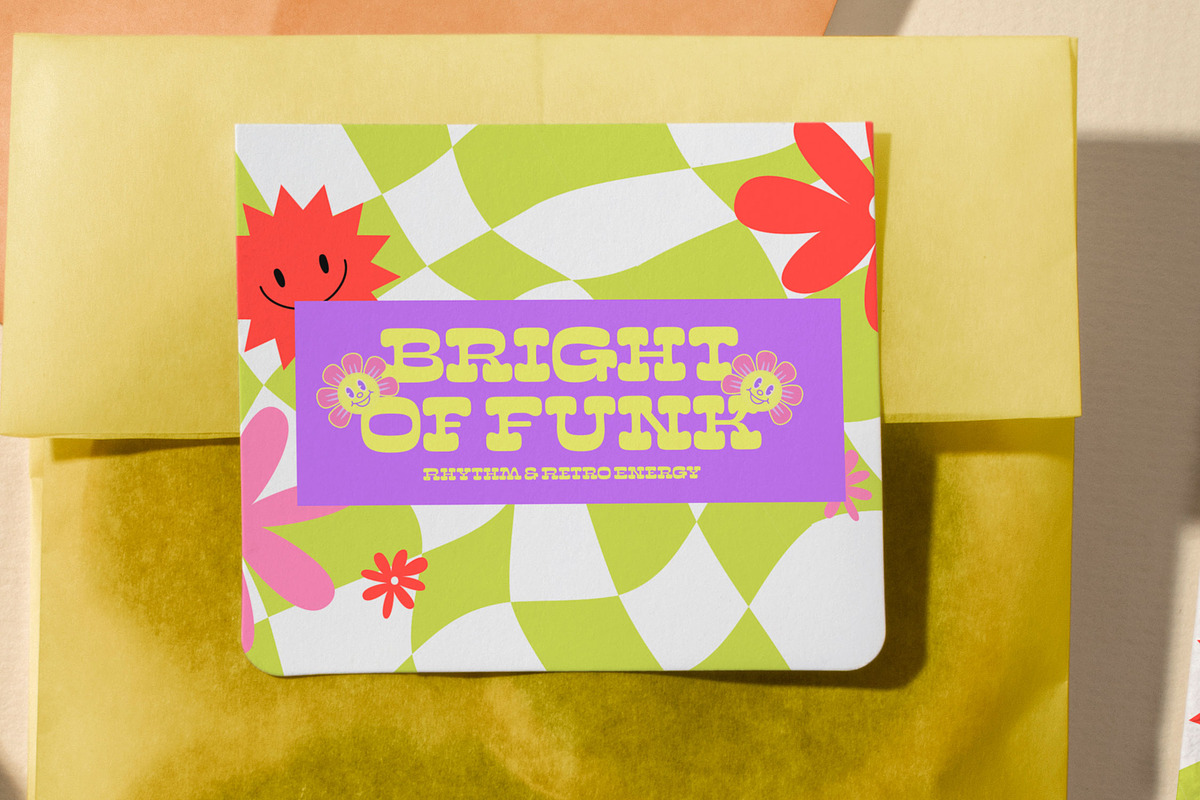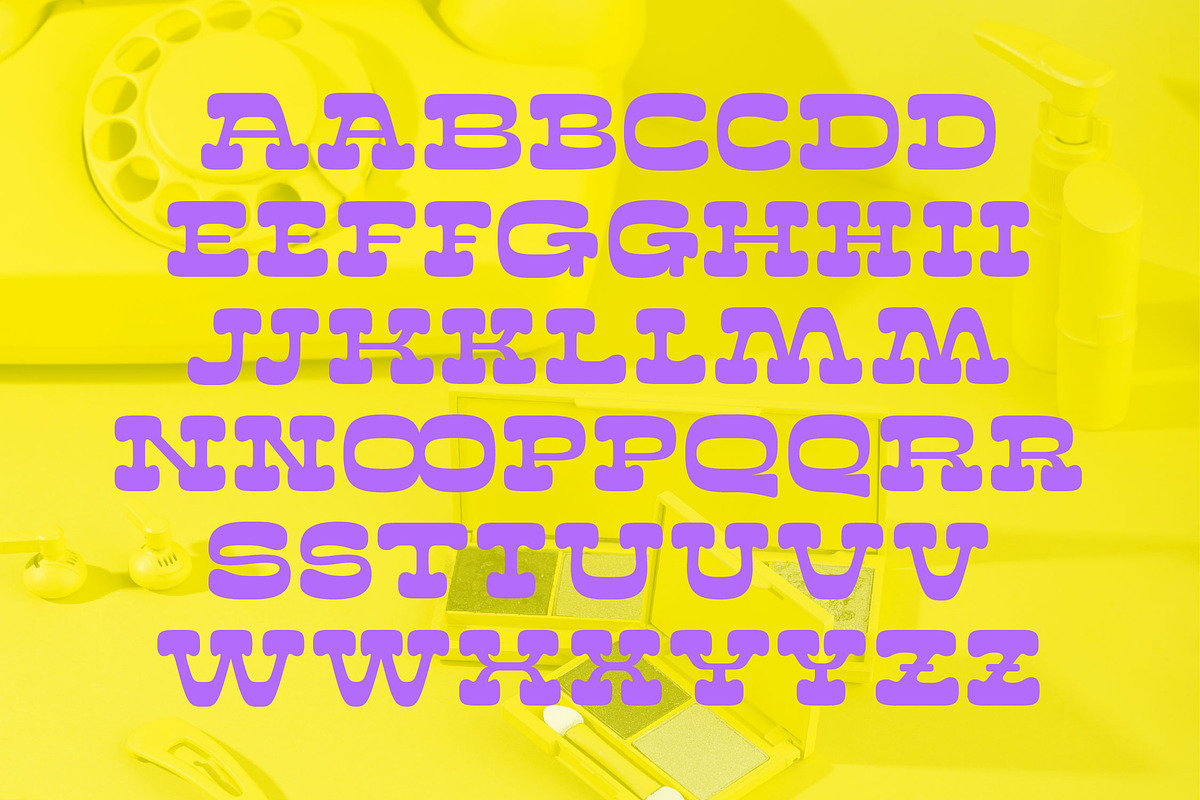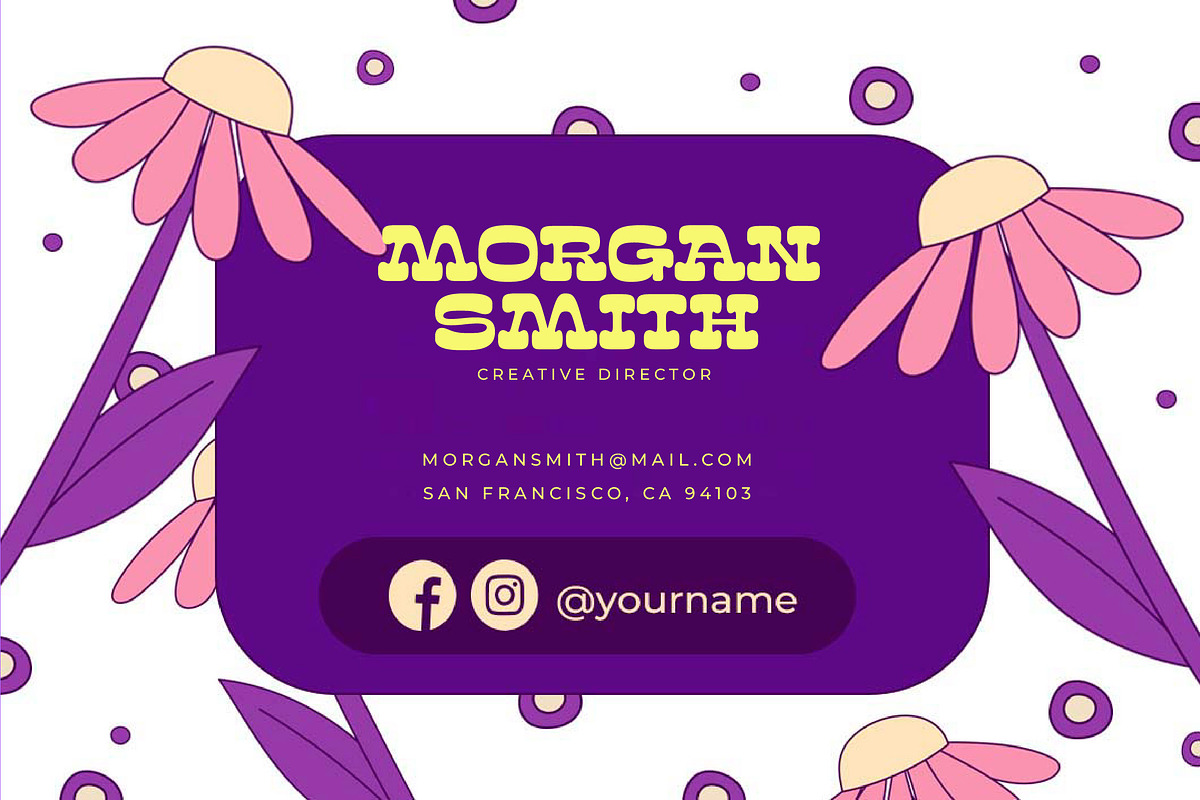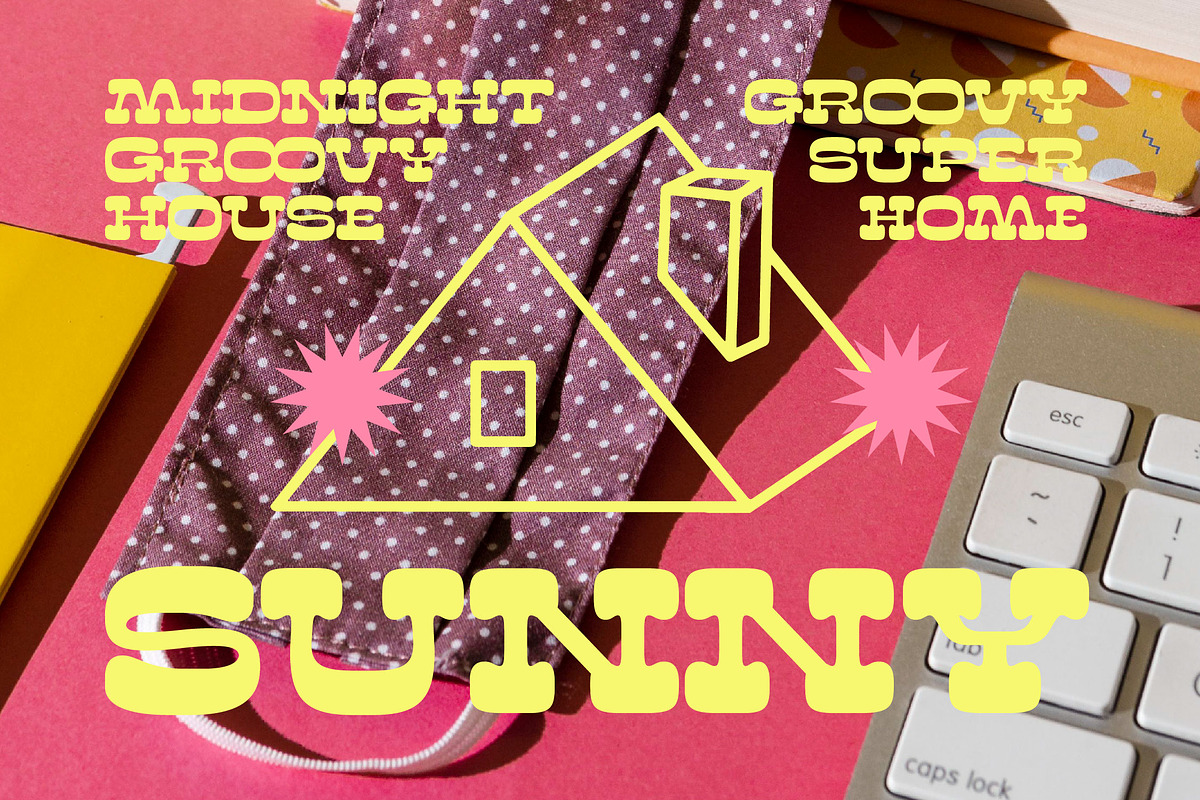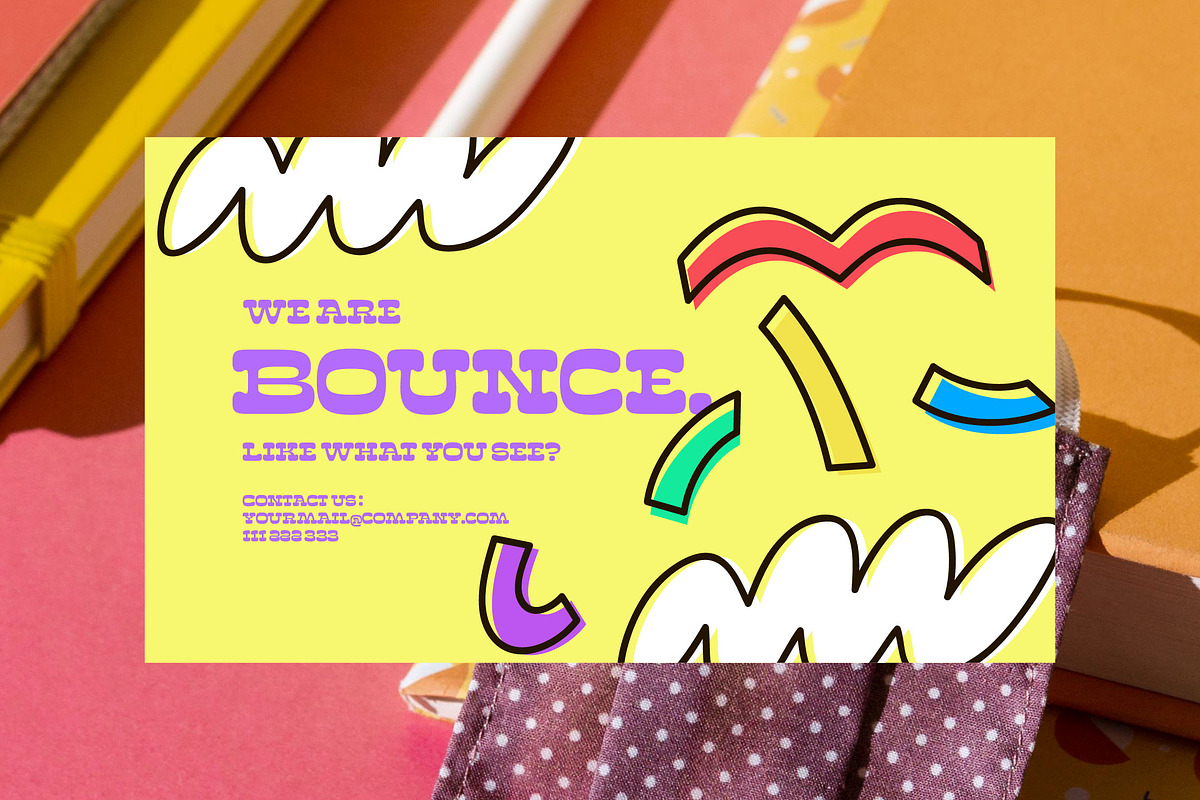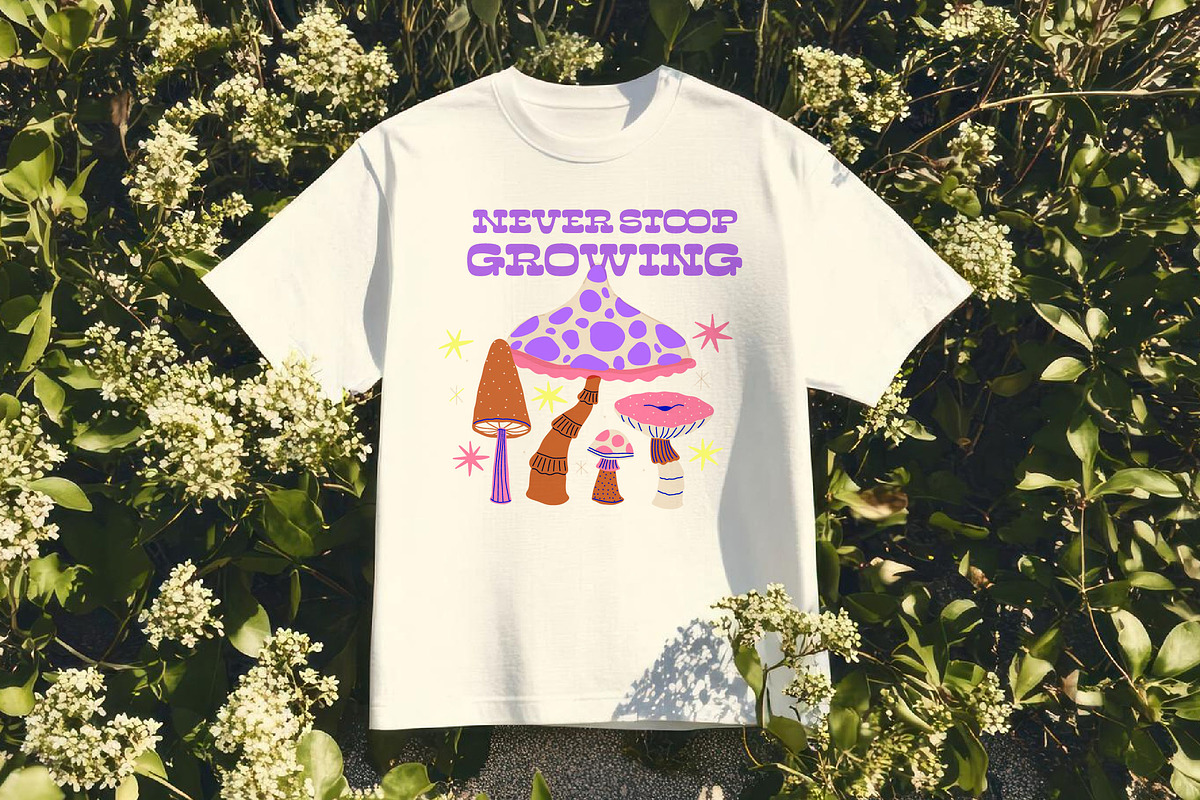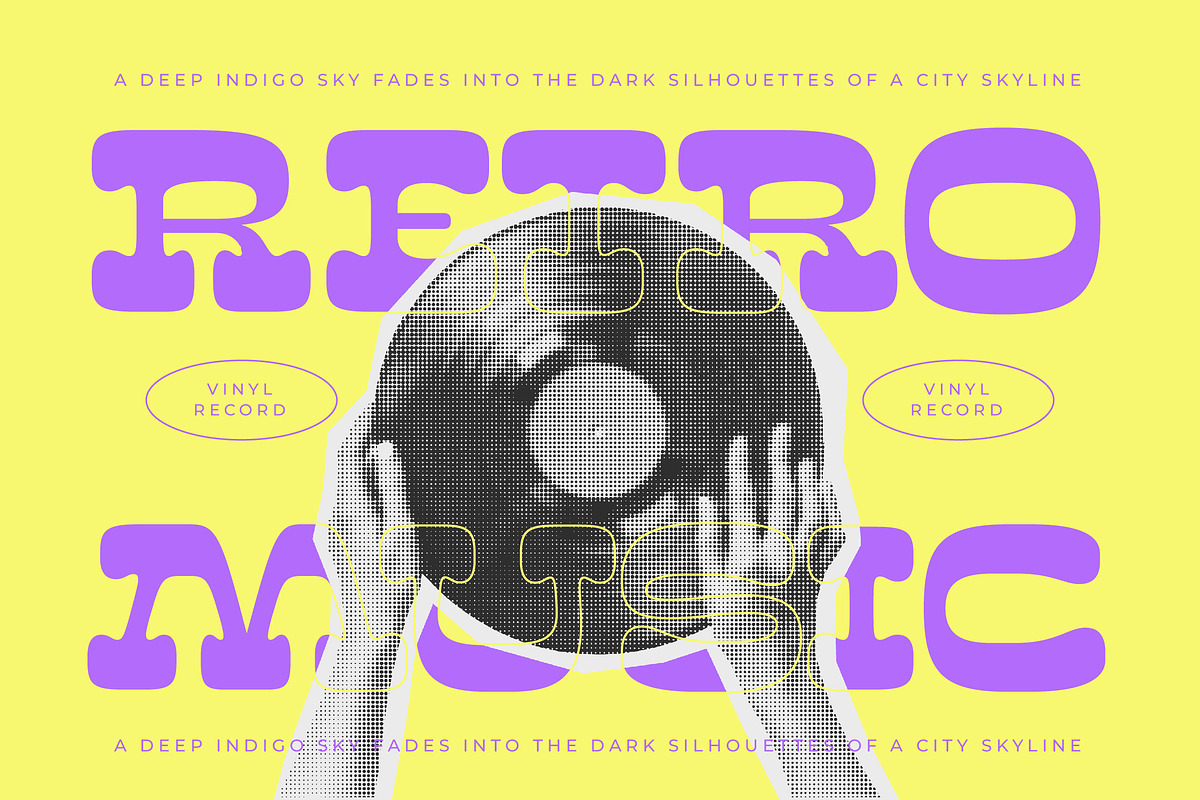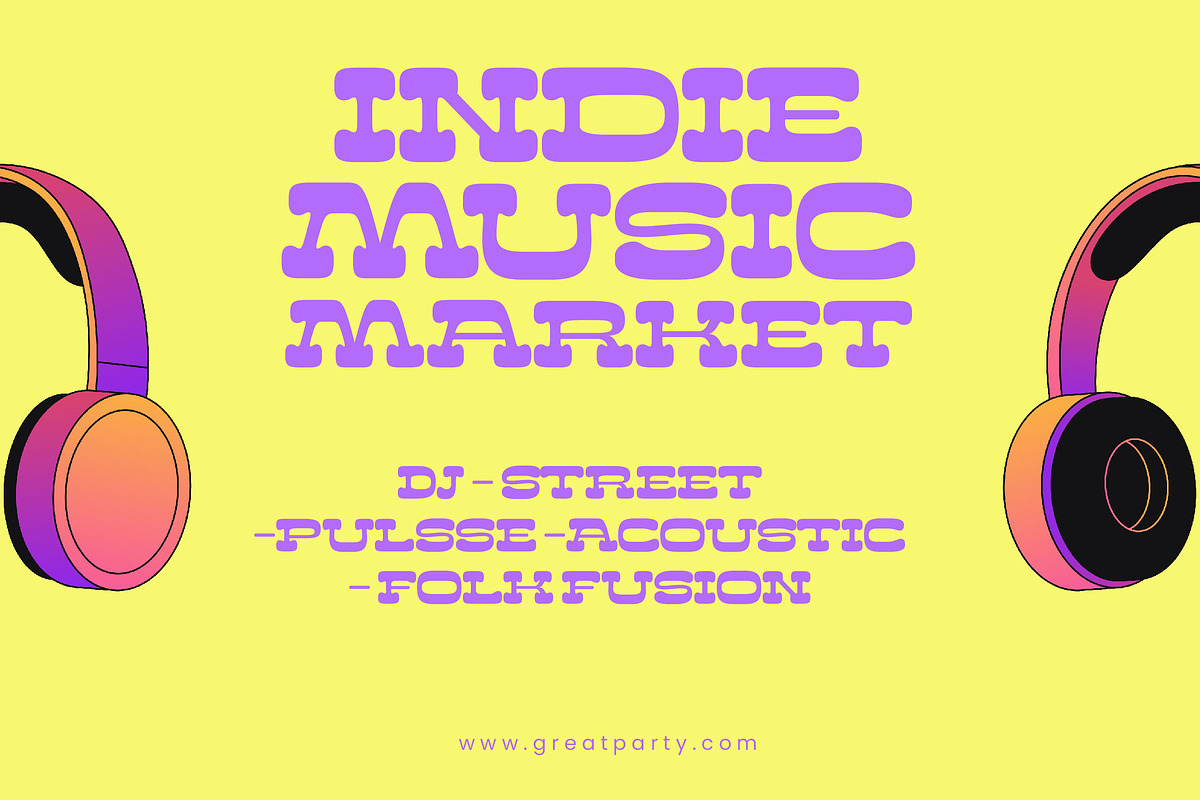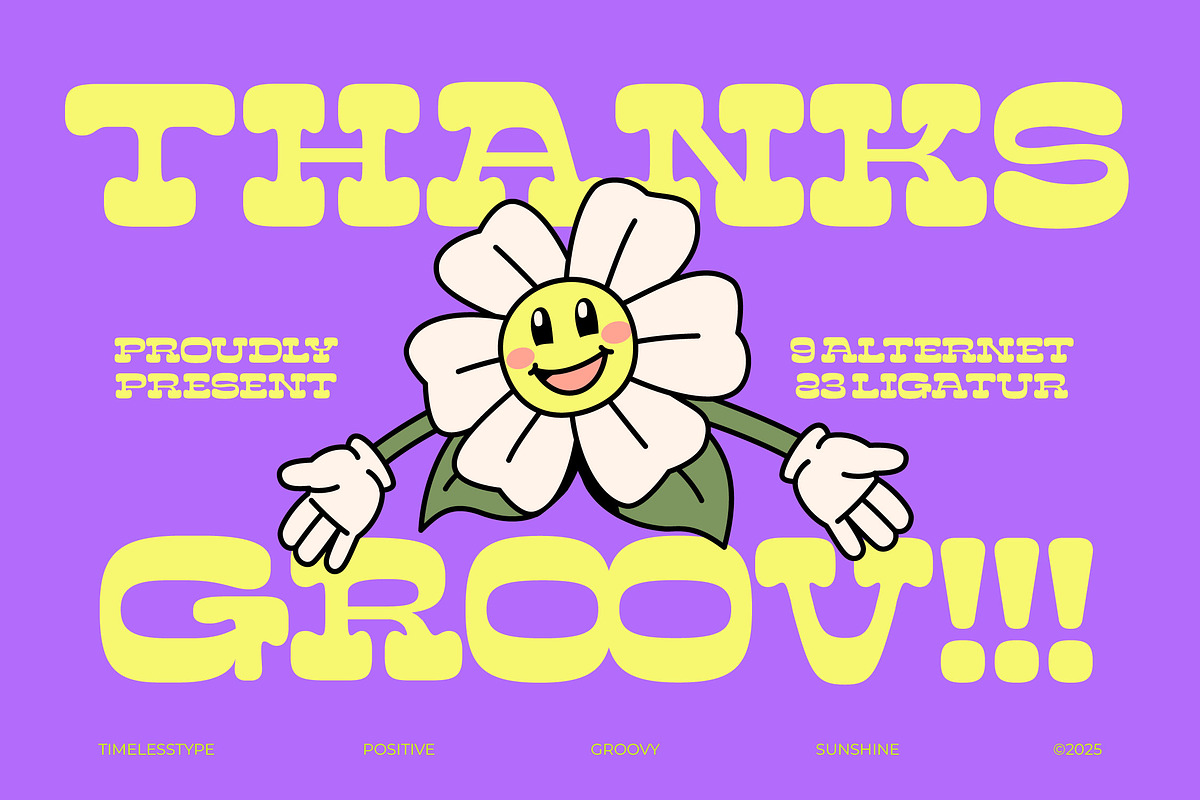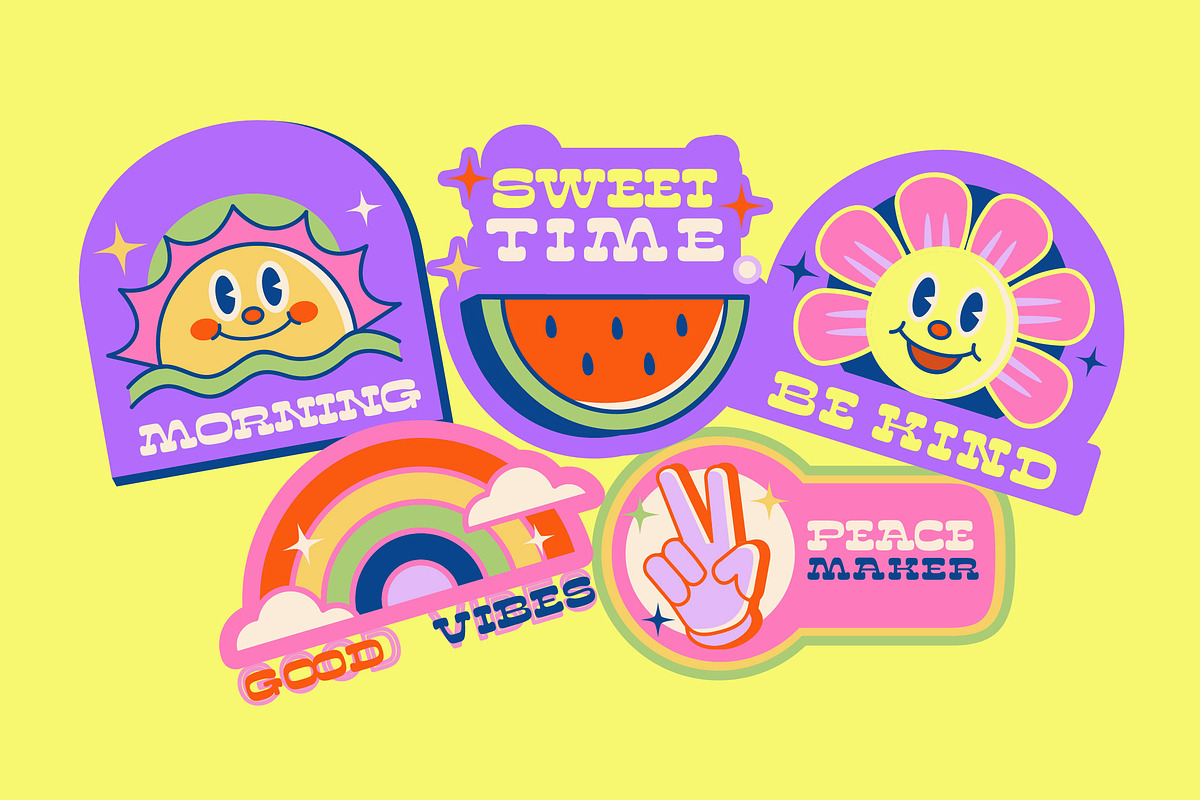
Sunny Groovy Retro Display Font
Embrace the vibrant energy of the past with Sunny Groovy, a typeface designed to radiate positivity and retro charm in every stroke. This playful display font captures the essence of a carefree era, making it the perfect centerpiece for any design that needs a touch of sunshine.
Inspired by the iconic visual culture of the 1970s and the rubber-hose animation style, this font draws from psychedelic posters and vintage vinyl covers. It reflects a world of bold colors, flower power, and an unmistakable sense of freedom and movement.
With its thick, rounded curves and energetic presence, this modern serif display brings a unique luxury typography feel to casual contexts. It is more than just a font; it is an editorial font that ensures maximum branding impact while maintaining a friendly, approachable high-contrast serif aesthetic.
Tapping into the massive modern serif trend, this typeface aligns perfectly with the current resurgence of Y2K and vintage aesthetics. As designers move toward more character-driven typography, these editorial display fonts offer the perfect balance of nostalgia and contemporary flair.
Whether you are working on a vibrant logo design or eye-catching packaging, this font excels across diverse platforms. It is ideally suited for bold branding, creative editorial layouts, and even unique wedding invitations or high-end fashion lookbooks that require a retro-chic vibe.
The package is fully loaded with professional features, including 33 unique ligatures and 9 stylish alternates to customize your look. It also offers comprehensive multilingual support and international characters to ensure your message reaches a global audience with ease.
Numerals
Punctuations (OpenType Standard)
Accents (Multilingual Characters)
Ligatures and Alternative Style Stylistic Set